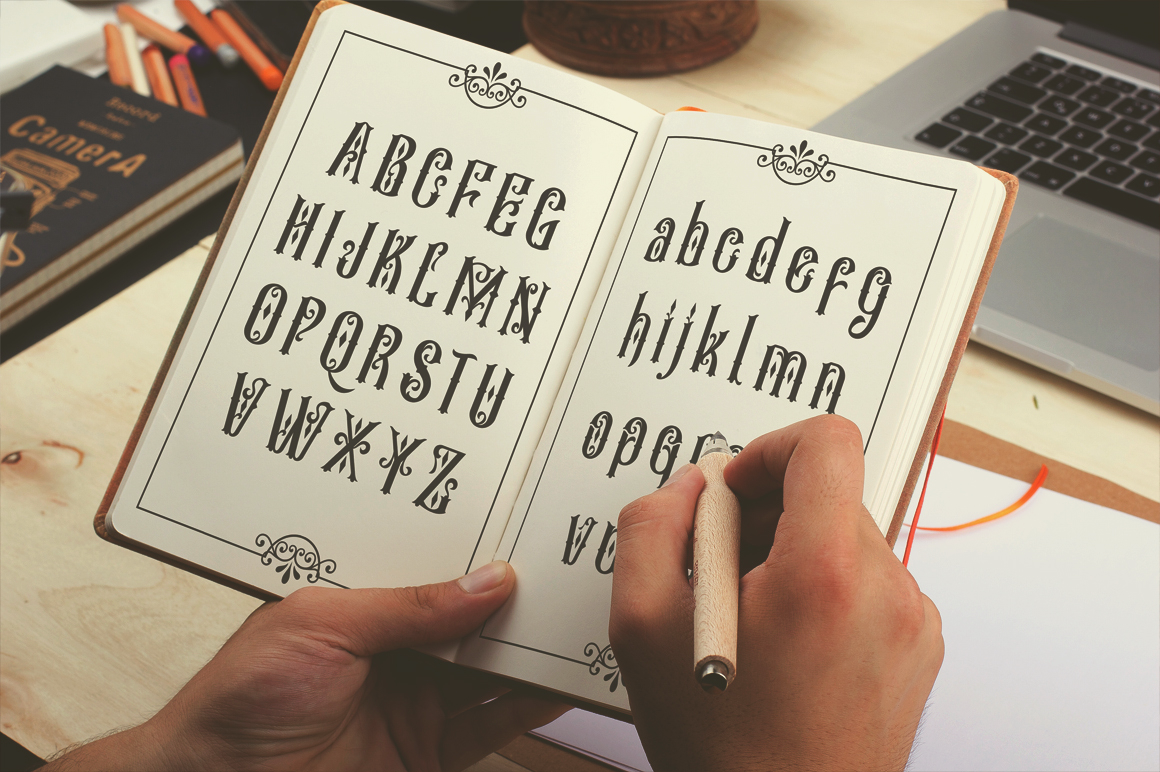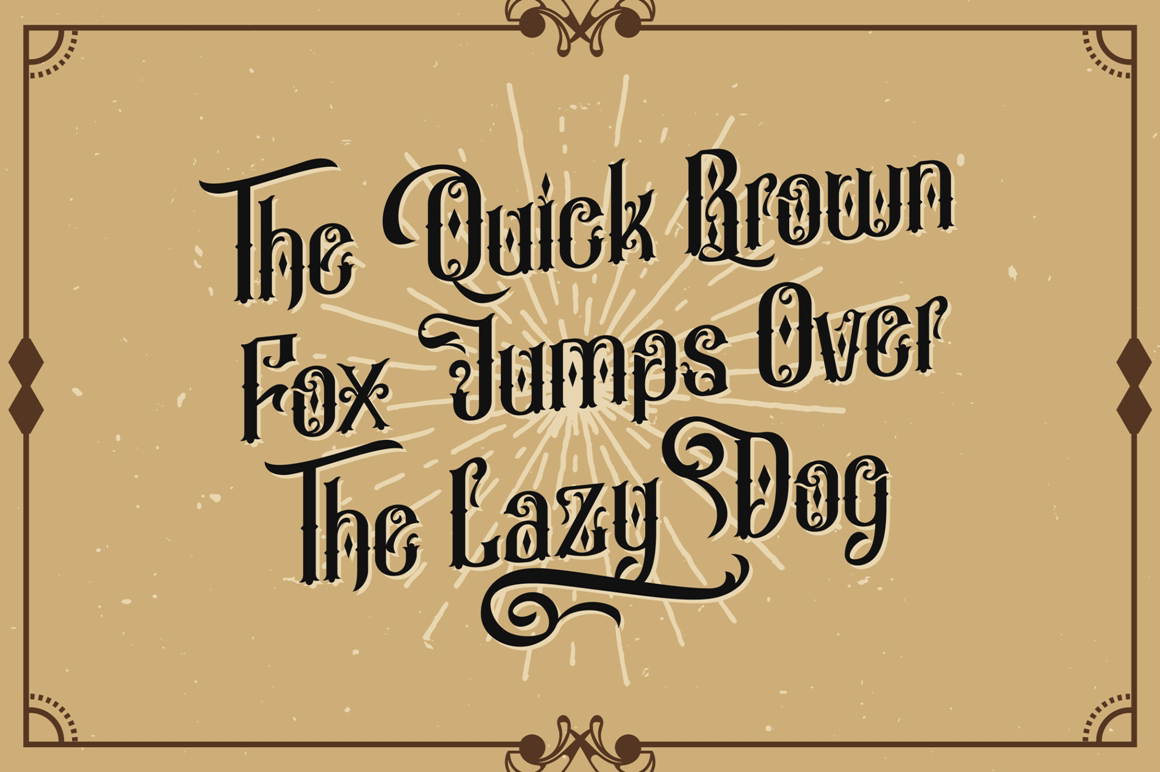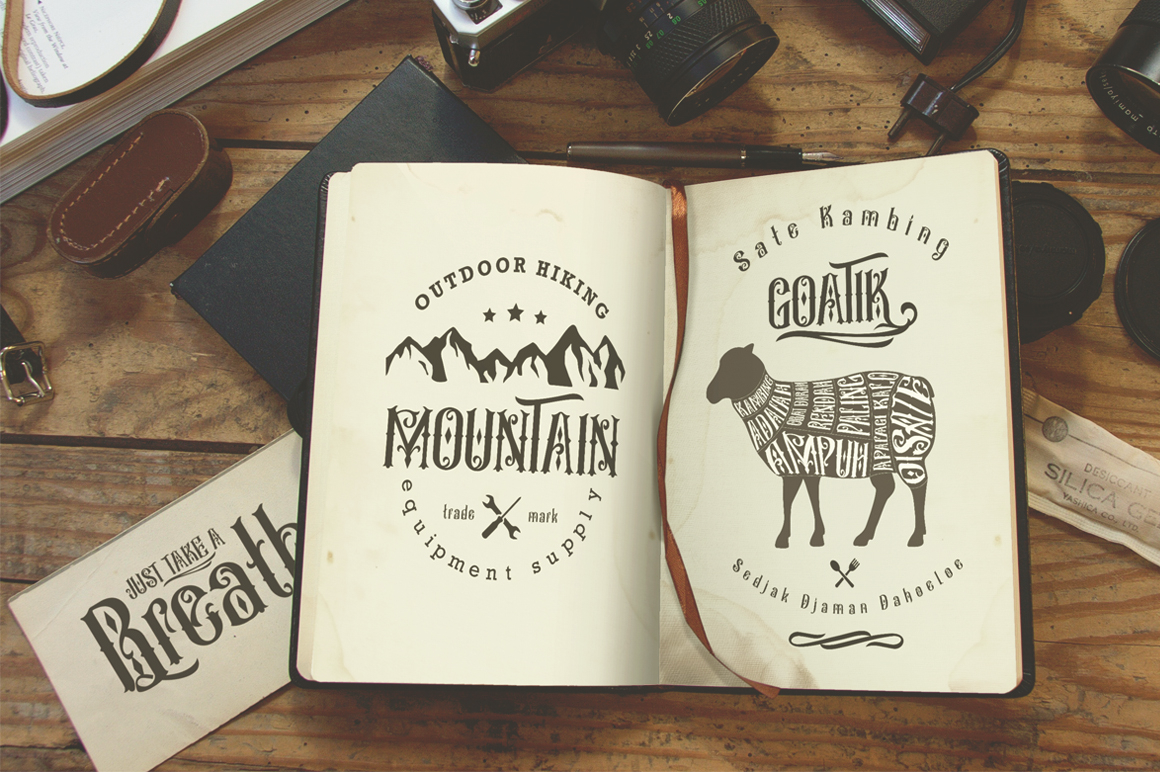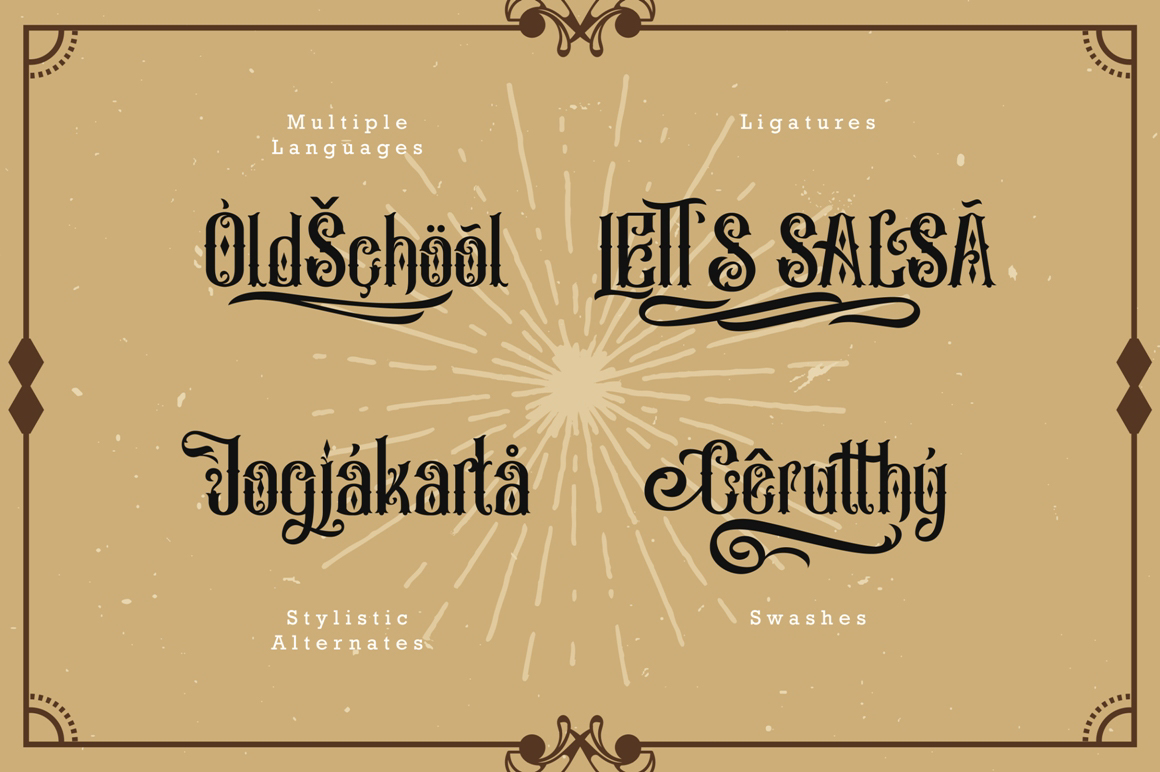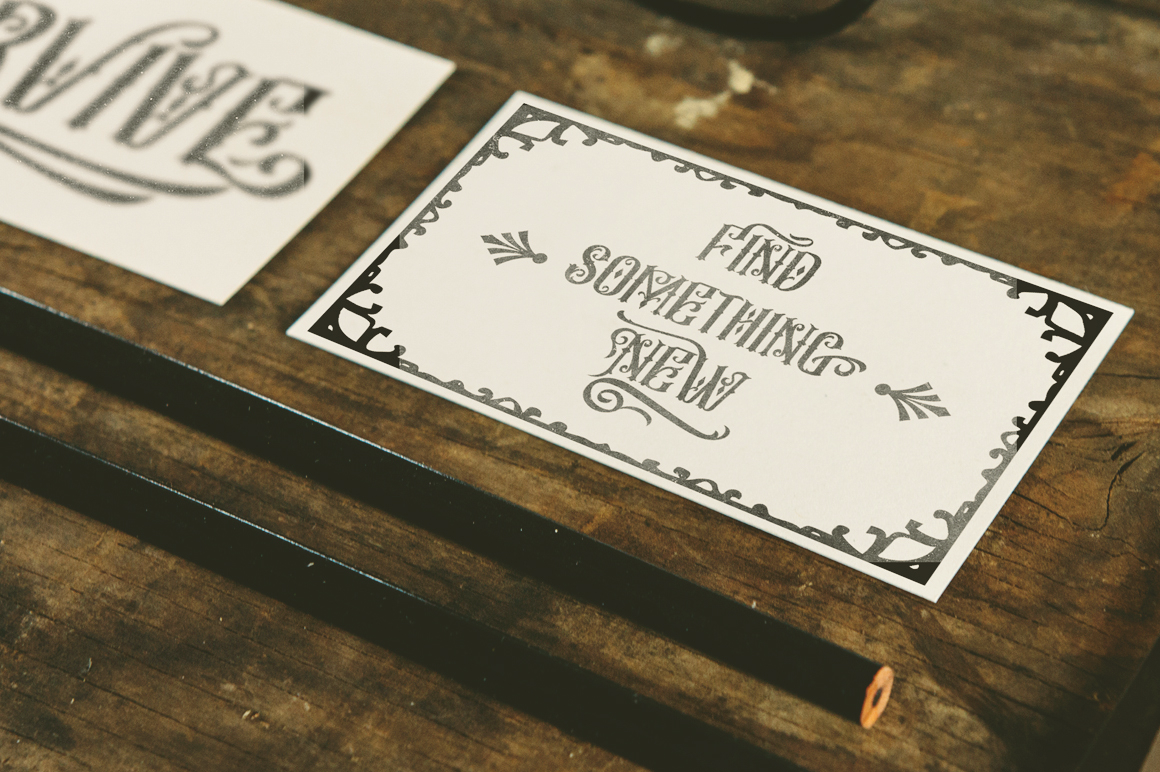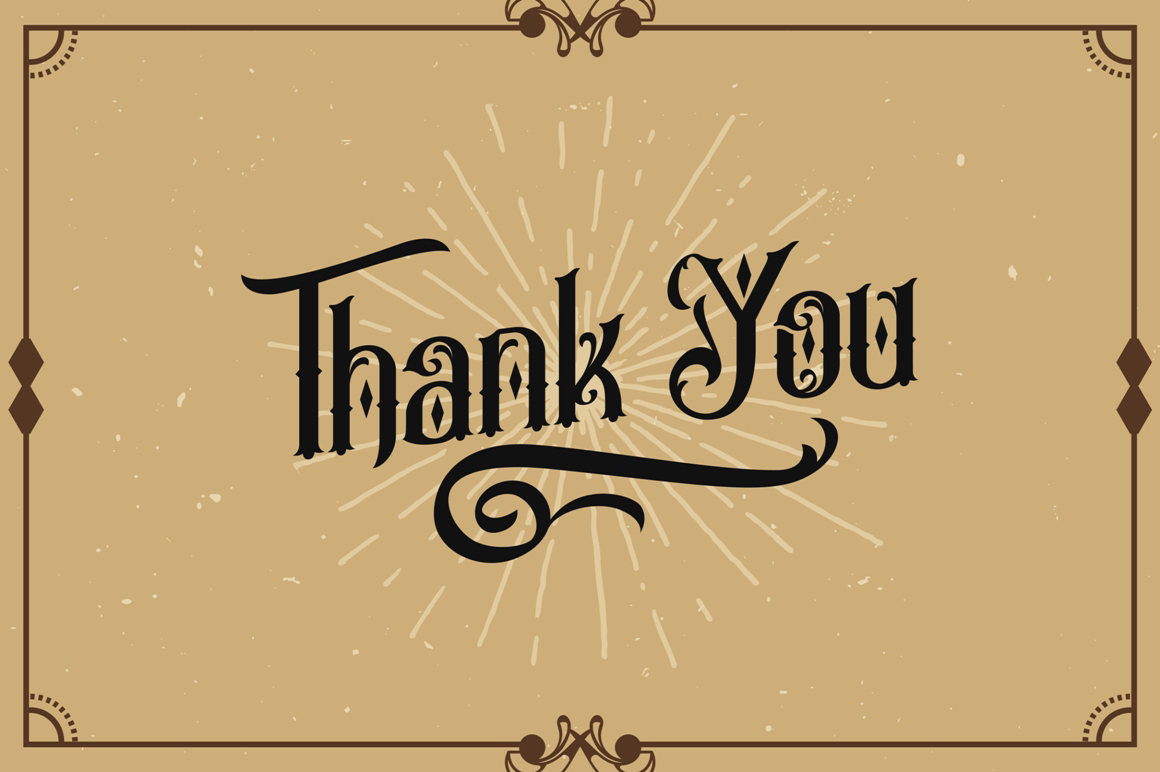
Unveiling Besigetz Font: A Masterpiece of Art Nouveau and Vintage Elegance
In the realm of typography, few fonts manage to capture the essence of art nouveau and vintage design as exquisitely as Besigetz. This stunning display font is a symphony of intricate details, crafted with a deep appreciation for the ornate and the elegant. Whether you’re a designer looking to add a touch of sophistication to your project or a crafter seeking to infuse your work with a vintage flair, Besigetz is an exceptional choice.
The Art Nouveau and Vintage Inspiration
Besigetz is more than just a font; it’s a journey through time, a nod to the artistic movements that defined the late 19th and early 20th centuries. Art nouveau, with its sinuous lines and organic forms, and vintage design, with its emphasis on elegance and refinement, are beautifully encapsulated in Besigetz. Each letter is a masterpiece, adorned with intricate flourishes and ornate details that evoke the opulence of a bygone era.
Crafting with Besigetz: A World of Possibilities
The versatility of Besigetz is one of its most compelling attributes. This font invites you to experiment, to push the boundaries of creativity, and to explore new ways of expressing your artistic vision. Whether you’re working on a branding project, a packaging design, or a digital platform, Besigetz can add a layer of depth and sophistication that’s hard to achieve with more straightforward typefaces.
Paying Homage to Vintage Design
For those who have a deep appreciation for vintage design, Besigetz offers a unique opportunity to pay homage to the past while still creating something distinctly modern. The font’s vintage sensibility is not about replication; it’s about reinterpreting classic design elements in a way that feels fresh and relevant today. This makes Besigetz an excellent choice for projects that require a touch of nostalgia, without sacrificing contemporary appeal.
Besigetz in Practice: Tips for Designers and Crafters
To make the most of Besigetz, consider the following tips:
- Use it Sparingly: Given its intricate design, Besigetz is best used sparingly. It can serve as a powerful accent or headline font, making a significant impact without overwhelming the viewer.
- Experiment with Pairings: Besigetz pairs beautifully with simpler, more straightforward fonts. Look for clean sans-serifs or classic serifs to create a balanced and visually appealing design.
- Play with Size and Color: Don’t be afraid to experiment with different sizes and colors. The intricate details of Besigetz can be beautifully highlighted with the right color scheme and sizing.
Besigetz is not just a font; it’s a statement. It’s a declaration of love for the intricate, the elegant, and the timeless. Whether you’re a designer, a crafter, or simply someone who appreciates the beauty of typography, Besigetz offers a world of creative possibilities. By incorporating this stunning font into your projects, you’re not just adding words to a page; you’re creating an experience, a journey through the realms of art nouveau and vintage design.